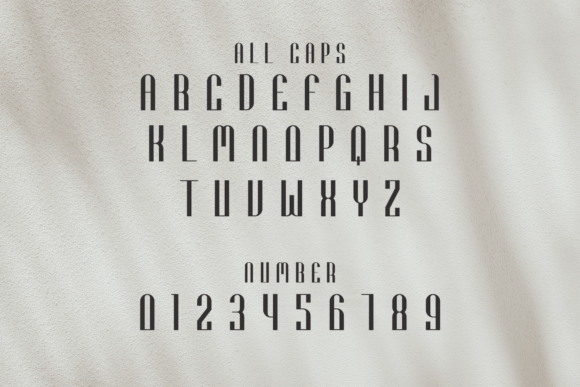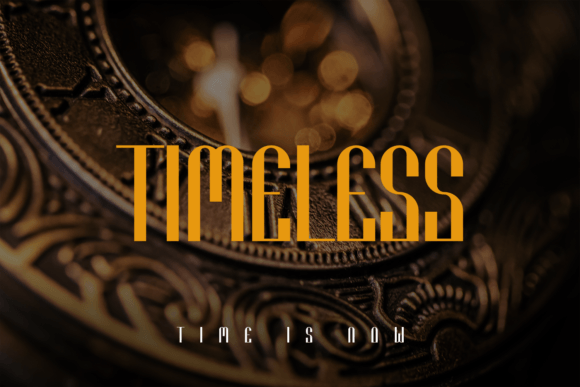
Gabetol Font: Elevate Your Designs with a Cool and Unique Display Font
In the world of typography, a font can make or break a design. A well-crafted font can elevate your creation, making it stand out from the crowd. If you’re a designer or crafter looking for a unique and cool display font, look no further than Gabetol. This stunning font is neatly crafted and highly detailed, making it a wonderful asset to your font library.
What Makes Gabetol Font So Special?
Gabetol is a display font that exudes style and sophistication. Its unique design makes it perfect for a wide range of projects, from branding and advertising to packaging and digital media. The font’s neat and detailed craftsmanship ensures that it will enhance any creation, regardless of the topic or theme.
One of the standout features of Gabetol is its versatility. This font can be used for both personal and commercial projects, making it an excellent addition to any designer’s toolkit. Whether you’re creating a logo, brochure, or social media graphic, Gabetol is sure to make a lasting impression.
Key Features of Gabetol Font
- Unique and Cool Design: Gabetol boasts a one-of-a-kind design that will set your creations apart from the rest.
- Neatly Crafted and Highly Detailed: The font’s attention to detail ensures that it will look great in any design.
- Versatile: Gabetol can be used for a wide range of projects, from branding and advertising to packaging and digital media.
- Easily Readable: Despite its unique design, Gabetol is easy to read, making it perfect for body text and headlines.
Here are a few tips for getting the most out of Gabetol:
- Experiment with Different Sizes: Gabetol looks great in a variety of sizes, from small captions to large headlines.
- Play with Color: The font’s unique design makes it perfect for use with bold and bright colors.
- Pair it with Other Fonts: Gabetol pairs well with a variety of other fonts, making it easy to create stunning font combinations.
Why Designers and Crafters Love Gabetol Font
Designers and crafters love Gabetol for a variety of reasons. Here are a few:
- It’s Unique: Gabetol’s unique design makes it stand out from other fonts on the market.
- It’s Versatile: The font can be used for a wide range of projects, making it an excellent addition to any designer’s toolkit.
In conclusion, Gabetol is a cool and unique display font that is sure to elevate your designs. Its neat and detailed craftsmanship makes it a wonderful asset to your font library, and its versatility ensures that it can be used for a wide range of projects. Whether you’re a designer or crafter, Gabetol is an excellent choice for anyone looking to add a little style and sophistication to their creations.